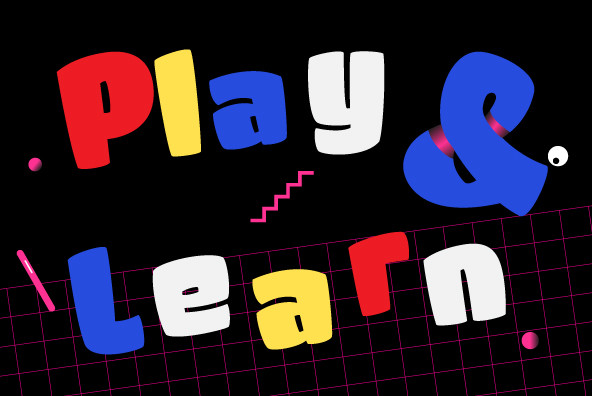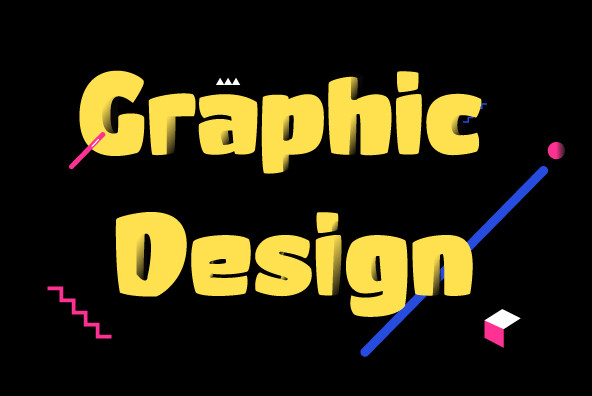
Dumpling
To get right to the point, Dumpling was drawn, digitized and mastered by an 18-year old over a semester-long Senior Concentration in Graphic Design at the South Carolina Governor’s School for the Arts. Seriously, think about that! What were you doing when you were a senior in high school? I watched this unfold as her teacher, guiding where I needed to, encouraging when necessary, but ultimately putting her through a ridiculously tedious, painful and compressed process. She did not falter, she did not complain, she worked.
In her own words (taken from an excerpt of her concentration paper), "In the middle of all this, I went to Charlotte, NC and saw and opera, the set designer was Jun Kaneko, [and afterwards] went to the Mint where we attended his talk (subsequently meeting him) and then perused a gallery of his work. His large ceramic forms made me realize how connected type is to sculpture. The medium may be different, but the ideas of negative space and forms interacting with each other and the view to convey a message are essentially the same.
Architecture too, is surprisingly connected to type. I find myself gravitating towards the word, ‘entasis’ as a way of describing my letterforms, though they have no reference to the Parthenon or Classicism. In type you need balance, continuity, a little unexpectedness, and a good amount of math."
What can you say? She listened to me :-)
In full disclosure, Mary Catherine, after completing her digitization, final tweaks, etc. in FontLab, turned the font over to me for OpenType coding and testing; though, I look forward to teaching her that next.